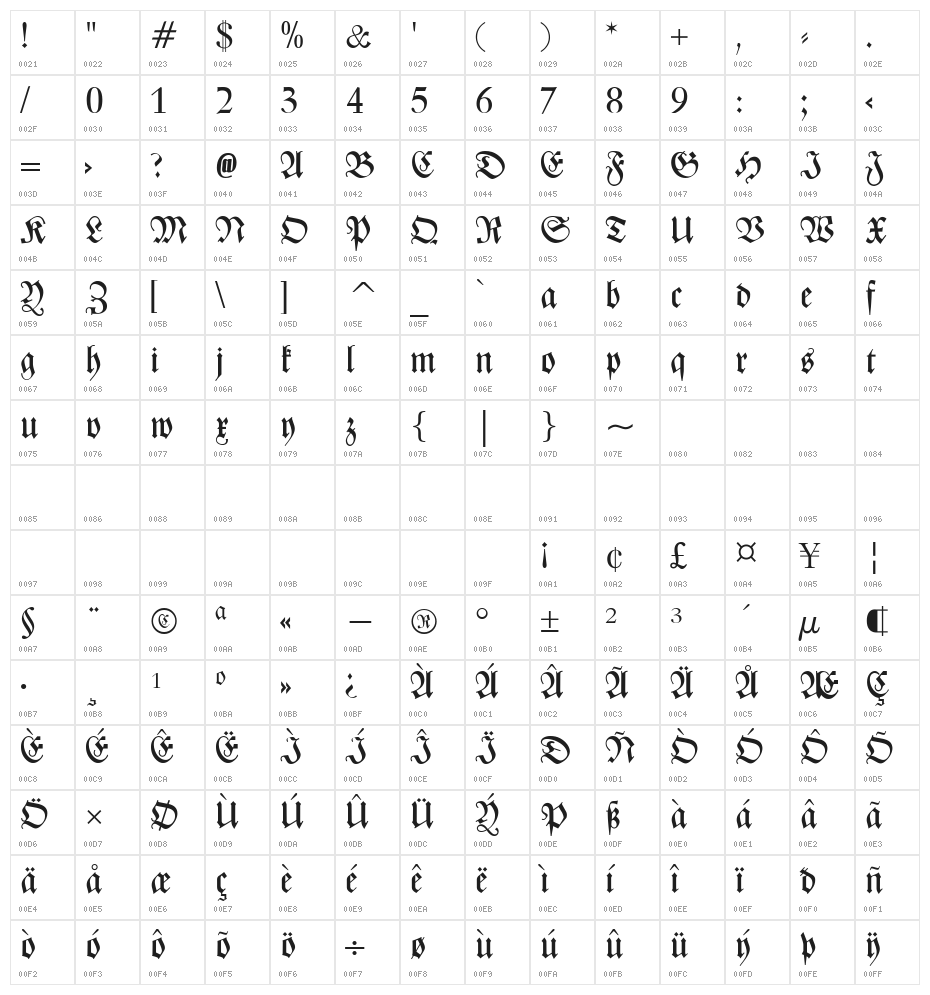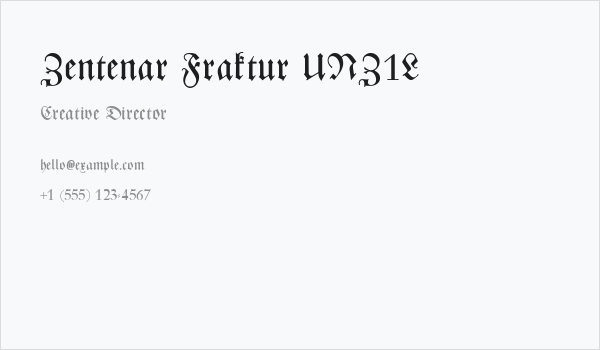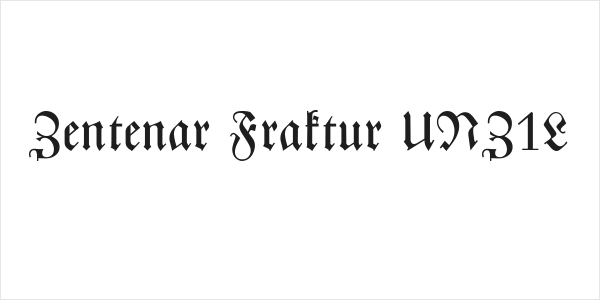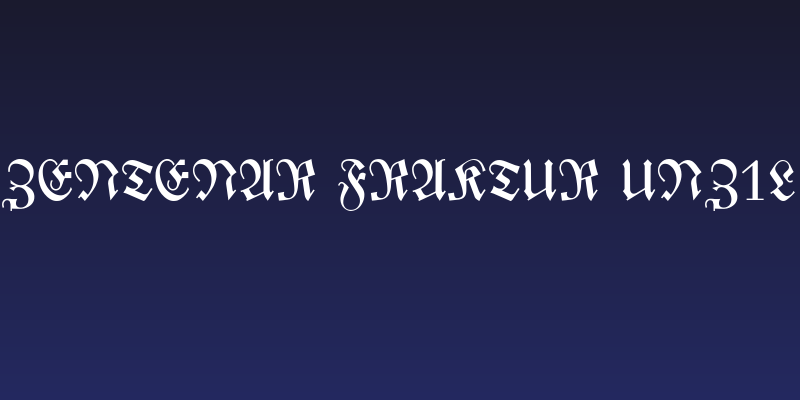
Zentenar Fraktur UNZ1L Font
Zentenar Fraktur UNZ1L Description
This font embodies the traditional elegance and intricate detailing of Blackletter typefaces. It features sharp, angular lines and elaborate curves, reminiscent of medieval manuscripts. The uppercase letters are particularly ornate, with flourishes that extend beyond the baseline, while the lowercase letters maintain a more restrained yet still decorative appearance. The numerals are bold and consistent with the overall style, providing a cohesive look. Special characters are equally stylized, adding to the font's historical charm. This font is ideal for projects that require a touch of antiquity and sophistication.
| Proposed Projects | Suitable for historical documents, certificates, book covers, and branding that requires a vintage or gothic aesthetic. |